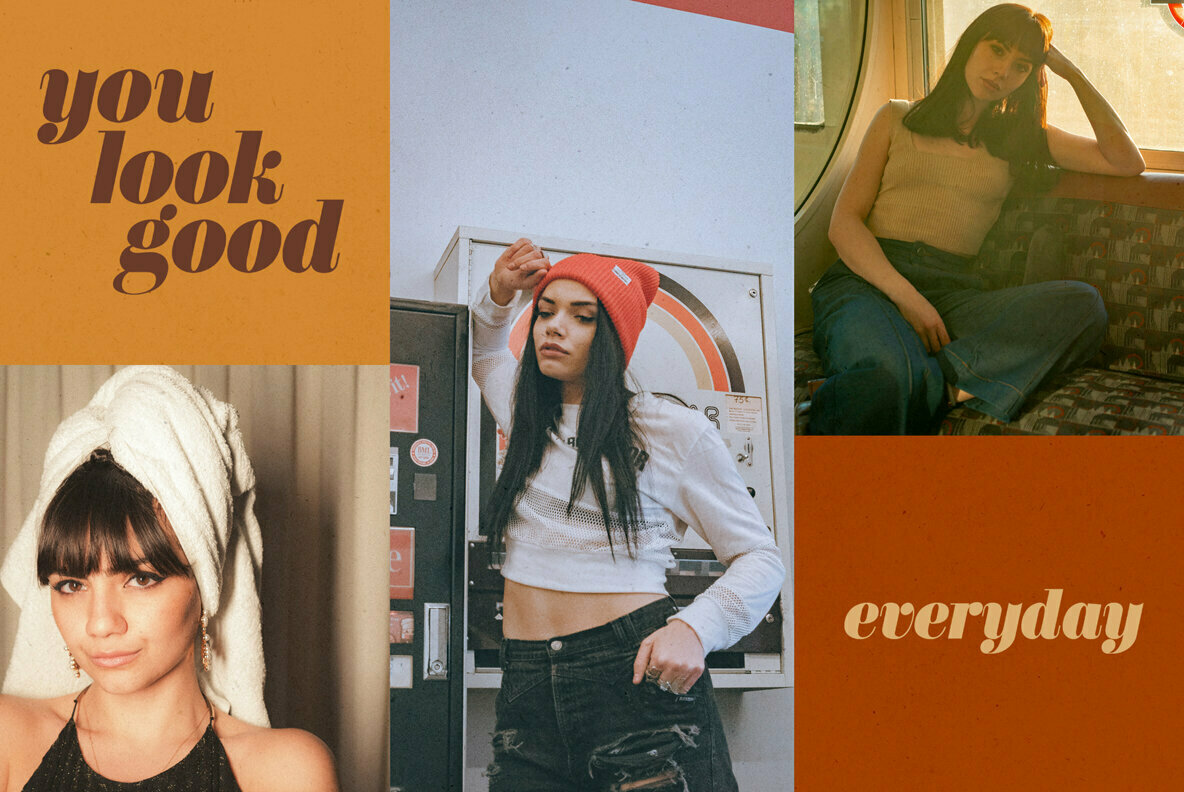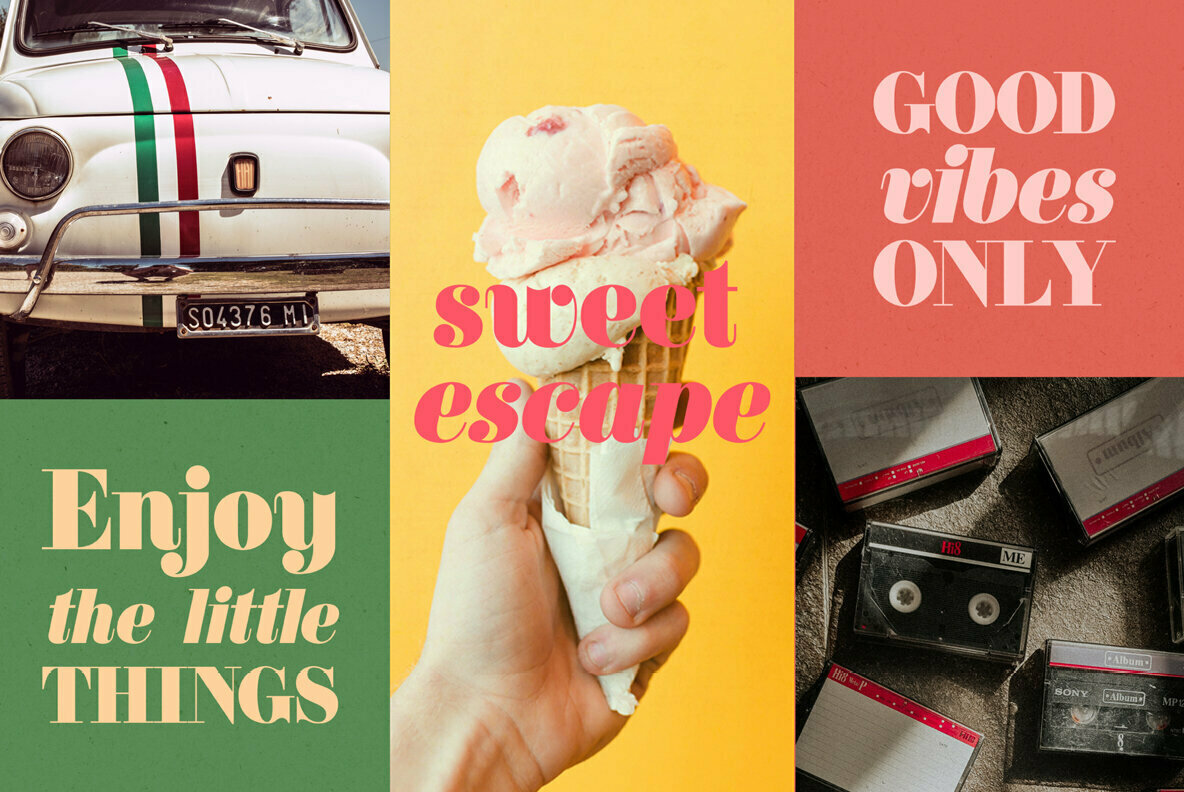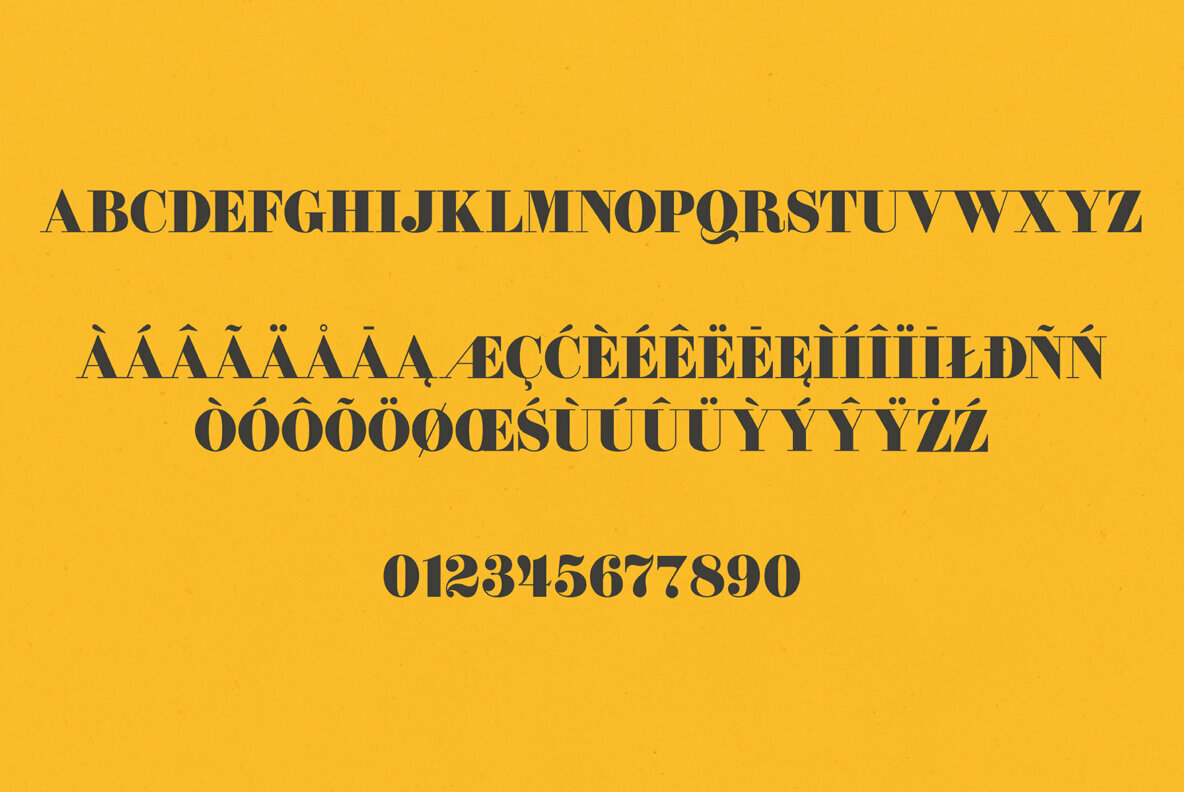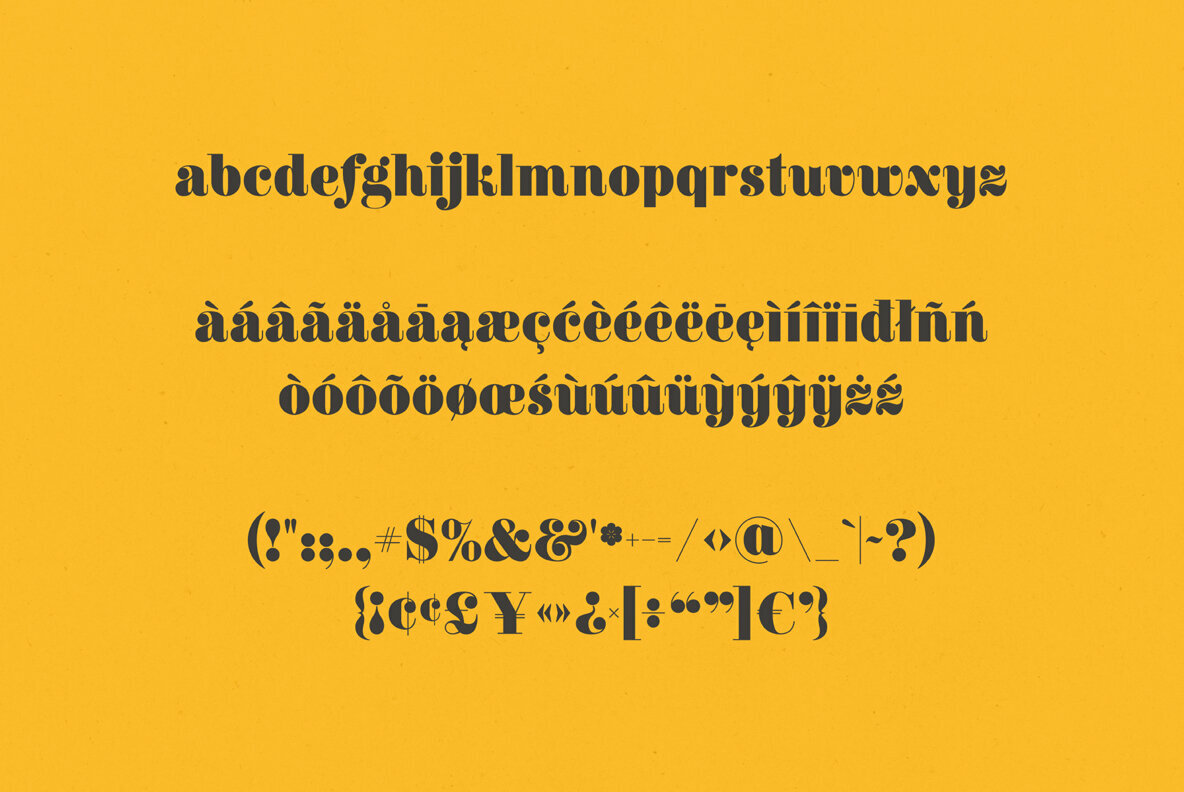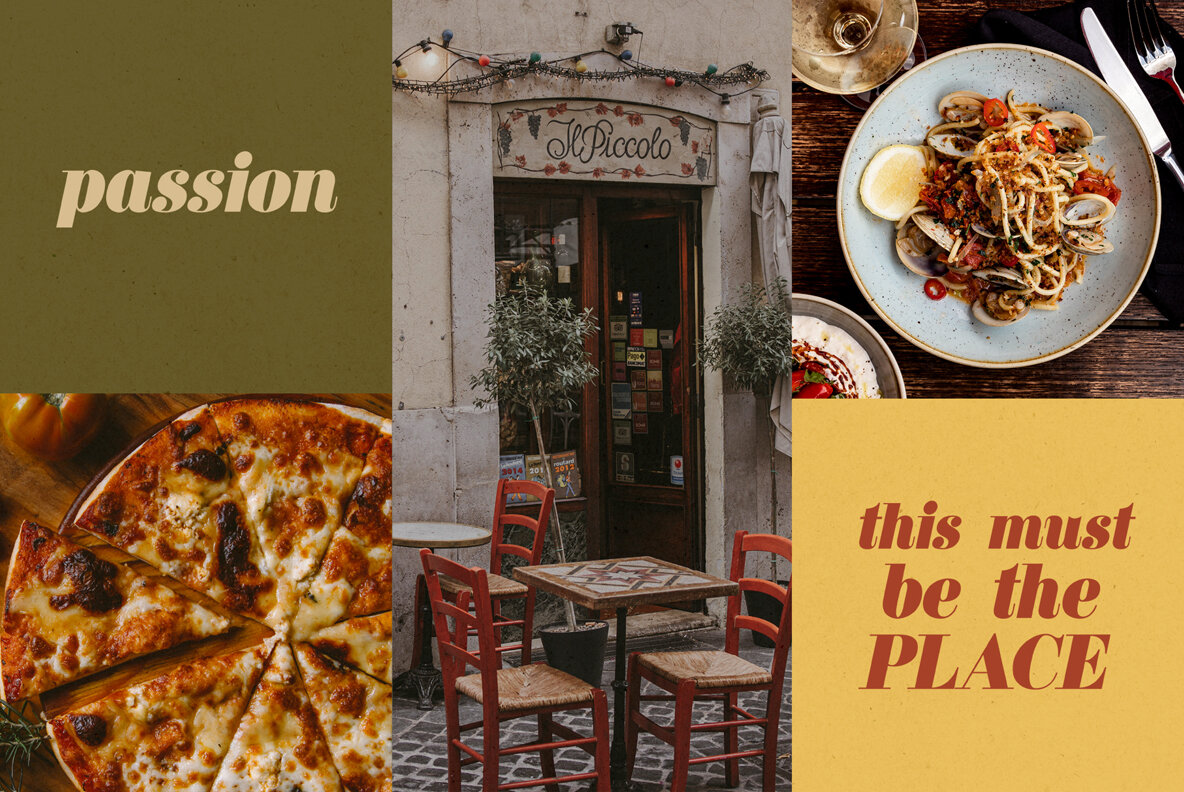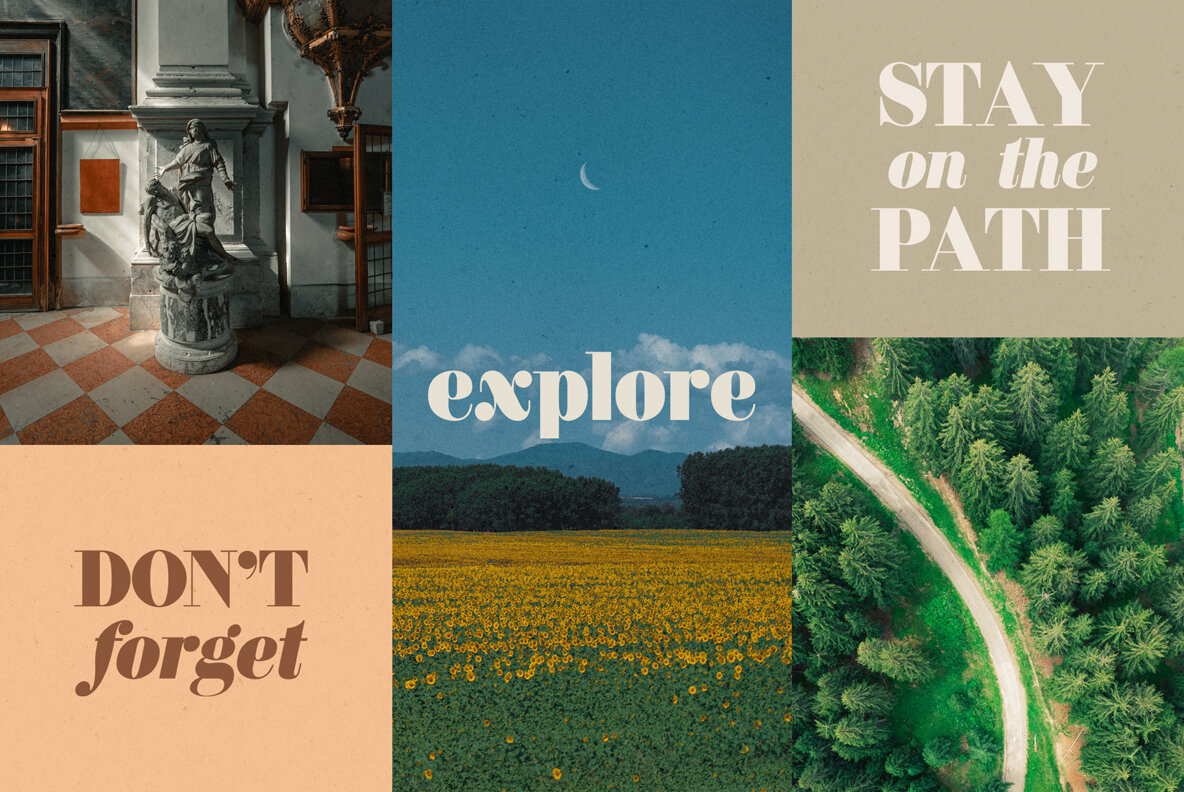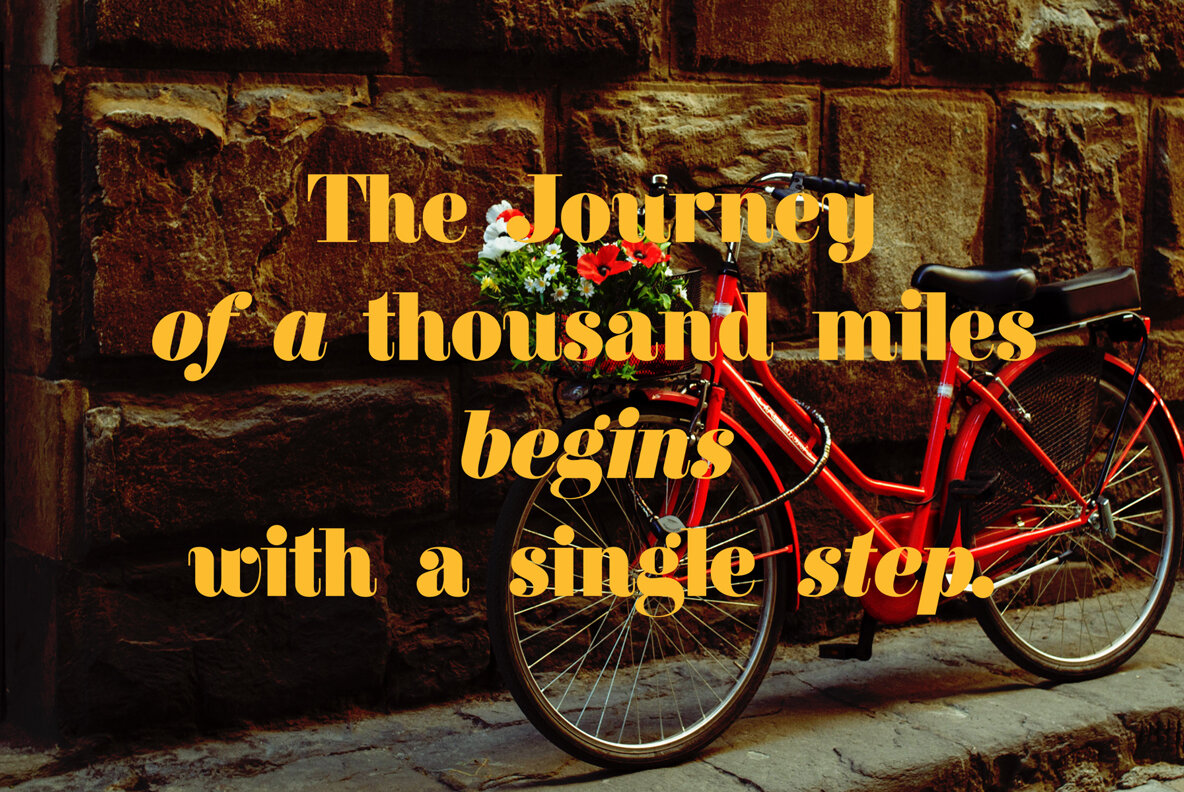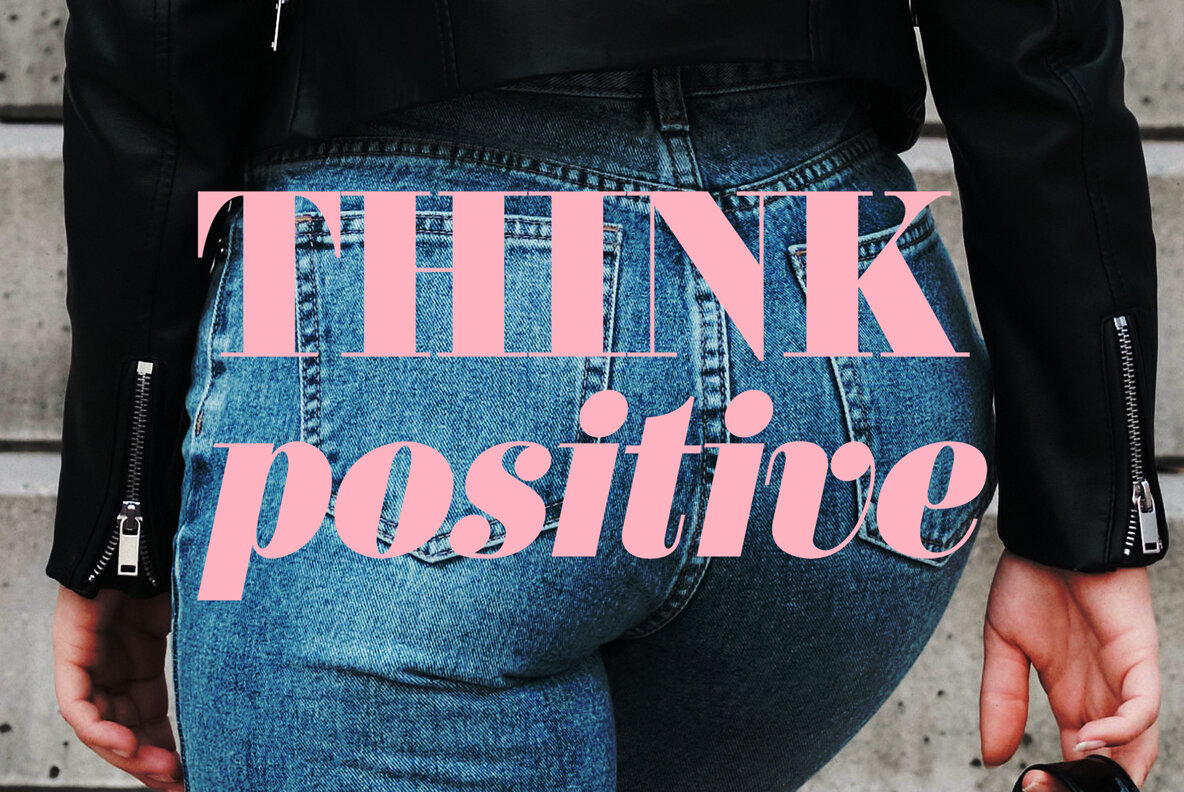
Florenzia Font
Florenzia Regular
Florenzia Italic
The Florenzia font, crafted with inspiration from the iconic style of the 1970s, stands out as a bold yet elegant serif typeface. Its regular and italic styles offer versatile options for creative combinations, making it an excellent choice for a variety of projects, including social media, fashion labels, letterings, branding, and logos. Florenzia provides both aesthetic charm and practical functionality, suited for the modern designer's repertoire. This serif font's adaptability ensures it adds a touch of retro elegance to any design project.Florenzia: Bold Elegance Inspired by the 70s